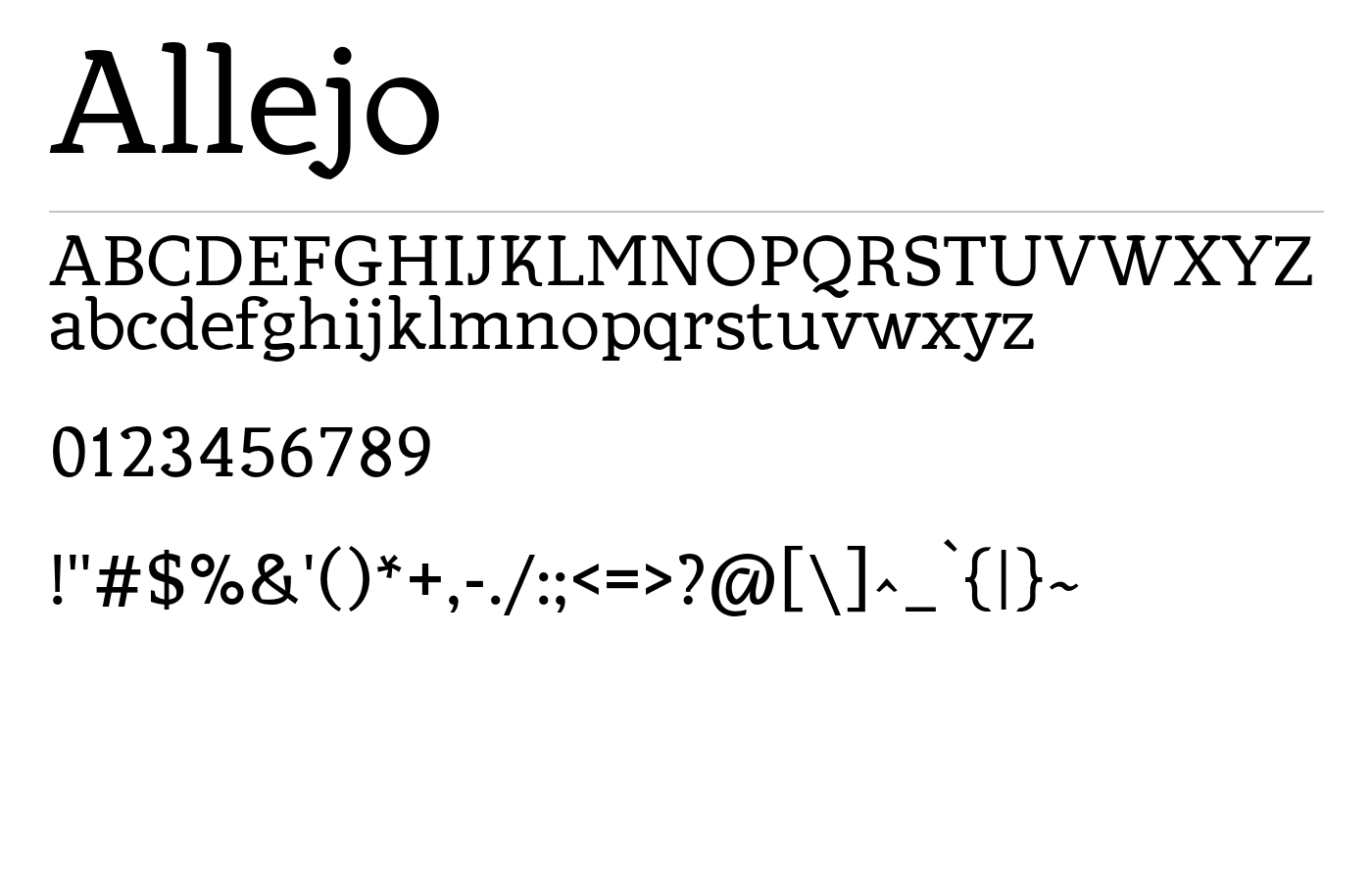
Allejo is a classic serif font with a modern touch, featuring a medium weight and balanced proportions that offer excellent readability. Its moderate stroke contrast, bracketed serifs, and slightly condensed width give it a traditional yet approachable feel, making it well-suited for editorial design, branding, and sophisticated web use. The font’s clear letterforms and elegant details convey professionalism and reliability, ideal for projects seeking a refined but friendly tone.
Allejo Font
About Allejo Font
| Designer | Thiago Matsunaga |